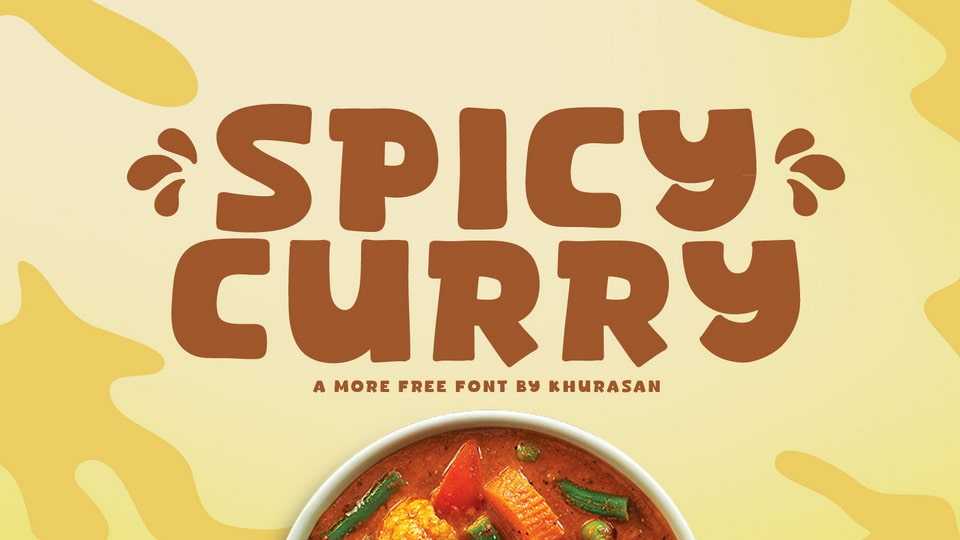
Download Spicy Curry font, a playful cartoon typeface that adds a bold punch of personality to your designs. It boasts a confident and robust design, with each letter radiating a sense of energetic movement.